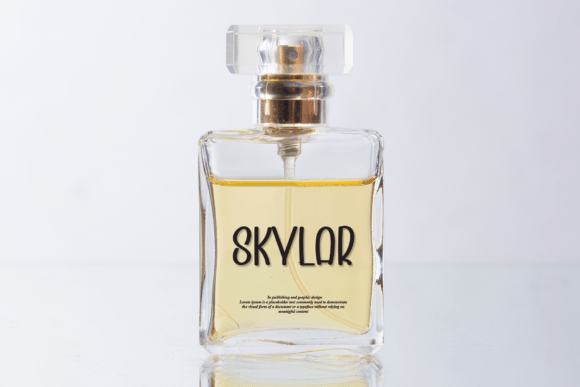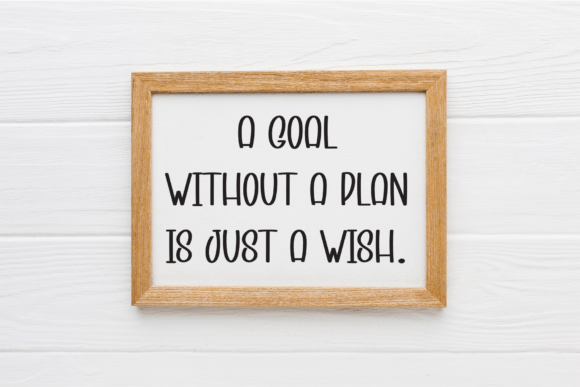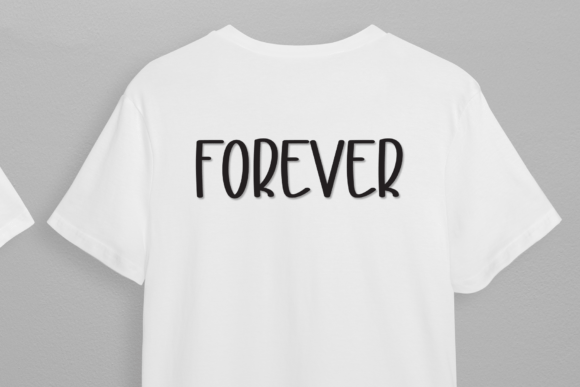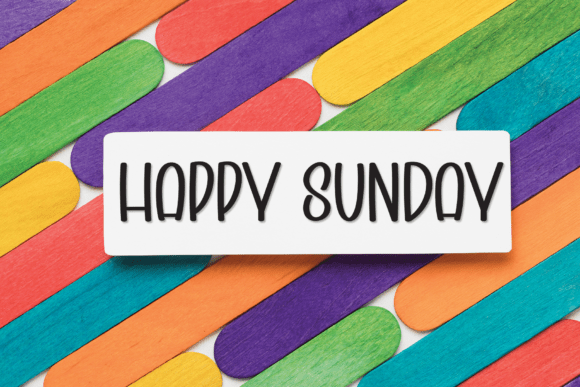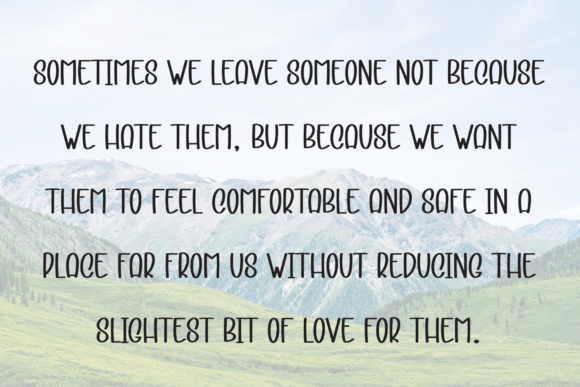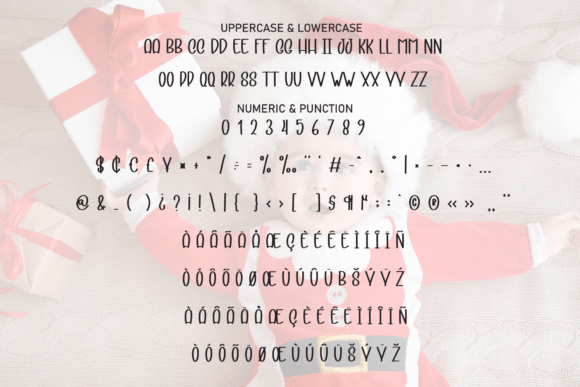
Unwrap the Magic of Baby Santa Font
As a designer, have you ever found yourself searching for the perfect font to capture the whimsy and wonder of the holiday season? Maybe you’re brainstorming ideas for a festive social media campaign or designing a special holiday-themed product. Whatever your creative project may be, you’re in luck because we’re about to introduce you to a font that’s sure to bring a smile to your face and a touch of magic to your designs: Baby Santa Font.
This adorable font is more than just a novelty – it’s a valuable tool for designers looking to add a playful and creative touch to their work. With its unique style and versatility, Baby Santa Font is perfect for a wide range of projects, from wall displays and wedding invitations to social media logos and product packaging.
Baby Santa Font Key Features
- Font Family: Baby Santa Font is a unique, hand-drawn font family designed for festive and playful purposes.
- Character Count: The font family includes a wide range of characters, including uppercase and lowercase letters, numbers, and punctuation marks.
- Unique Characteristics: Baby Santa Font features a whimsical, hand-drawn design with bold lines and playful flourishes, making it perfect for creating festive and eye-catching designs.
Baby Santa Font Review
I recently had the chance to work with the “Baby Santa Font” and I must say it’s a unique and fun font. ✨ One of the things that works well with this font is its playful and festive vibe, making it perfect for holiday-themed projects or designs targeting young families. The font is well-suited for titles and headings, adding a touch of whimsy to your design.
Another advantage of the “Baby Santa Font” is its legibility, even at smaller font sizes. This makes it a great choice for projects where you need to convey a lot of information in a concise manner. Additionally, the font is highly customizable, allowing you to adjust the size, color, and style to suit your design needs.
However, I do have a few concerns with the “Baby Santa Font”. ⚠️ Firstly, the font may not be suitable for all types of projects, particularly those that require a more serious or professional tone. Additionally, the font’s limited character set may make it difficult to use in certain contexts, such as when working with international characters.
Overall, I think the “Baby Santa Font” is a great choice for projects that require a playful and festive vibe. While it may have some limitations, the font’s unique character and high customizability make it a great addition to any designer’s toolkit.
- Playful and festive vibe
- Well-suited for titles and headings
- Highly legible, even at smaller font sizes
- Limited character set
- May not be suitable for all types of projects
Tips for Getting the Most Out of the “Baby Santa Font”
Use the “Baby Santa Font” for festive designs, such as holiday cards, gift tags, and party invitations.
Pair the font with bold colors and festive graphics to create a fun and playful atmosphere.
Experiment with different font sizes and combinations to create a unique and eye-catching design.
The “Baby Santa Font” is perfect for:
Christmas and holiday designs
Baby shower invitations and decorations
Children’s birthday party invitations and decorations